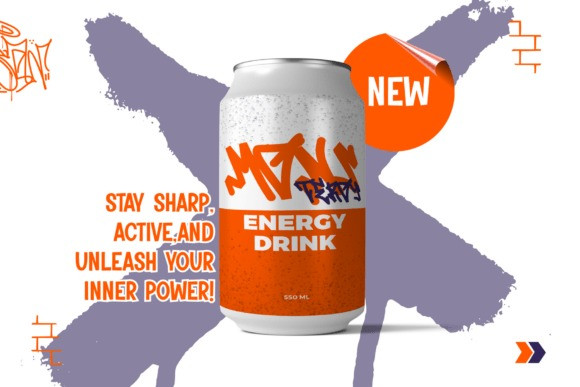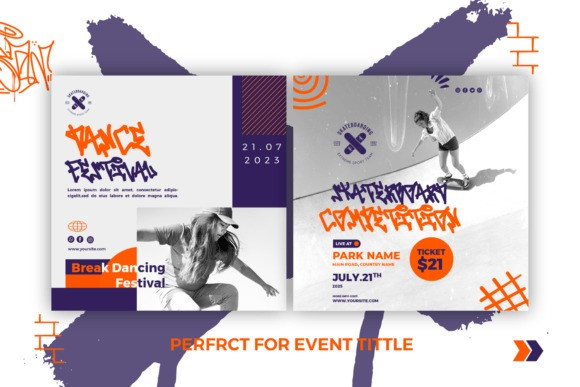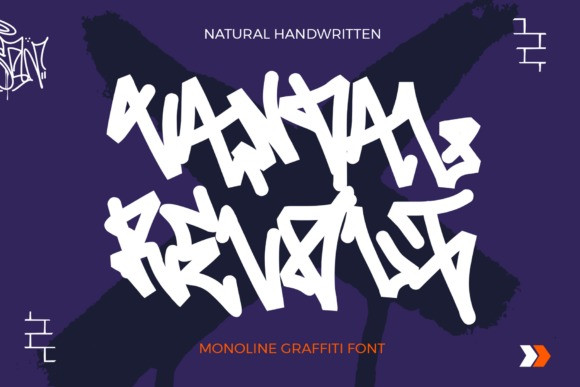
Vandal Revolt Font
Vandal Revolt Font is a street hand-lettering monoline graffiti font that embodies the raw, rebellious spirit of urban art. Designed with clean, single-line strokes, this font delivers a sleek yet bold aesthetic, perfect for capturing the essence of authentic street style. The monoline design gives it a smooth, consistent flow, while the hand-drawn letterforms add a touch of rugged, dynamic energy. Vandal Revolt is ideal for projects that need a distinctive, edgy look, such as posters, branding, apparel, album covers, and more. Whether you’re aiming for a classic graffiti vibe or a modern street-art feel, this font offers versatility and impact, making bold statements with every letter.